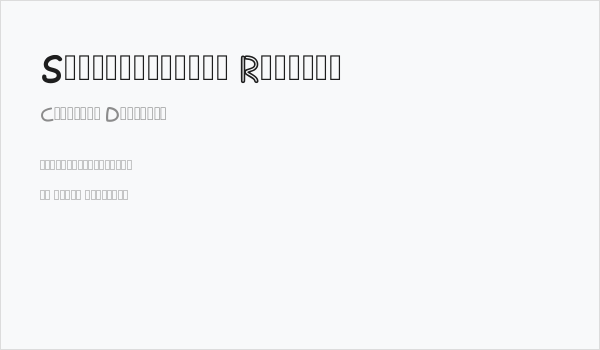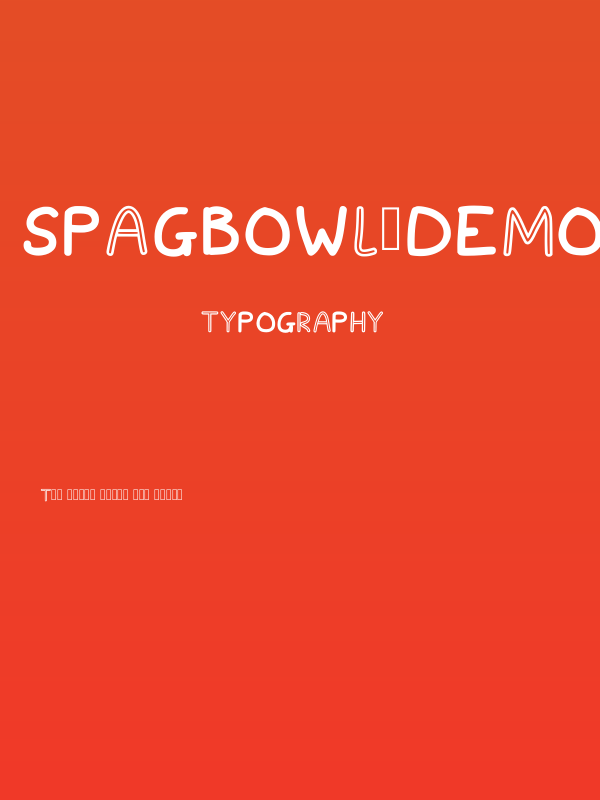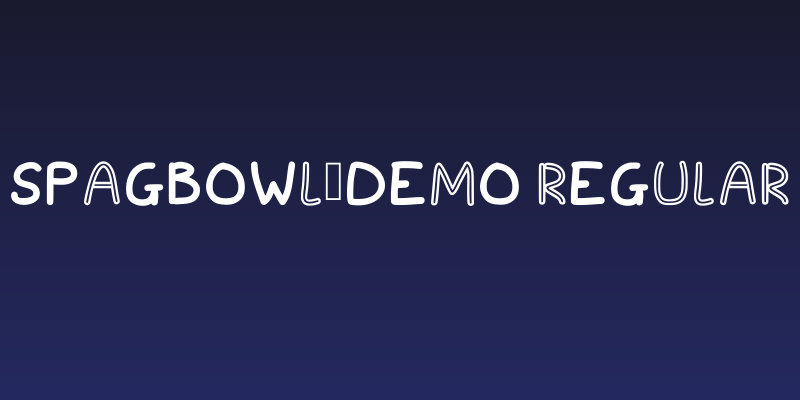
Spagbowl_demo Regular Font
Spagbowl_demo Regular Description
This playful and quirky font features a mix of bold and thin strokes, giving it a dynamic and lively appearance. The uppercase letters are characterized by their rounded edges and slightly irregular shapes, adding a casual and informal feel. The lowercase letters maintain this playful style, with some letters having unique, whimsical forms. The numbers are consistent with the overall style, ensuring a cohesive look. This font is ideal for projects that require a fun and approachable aesthetic.